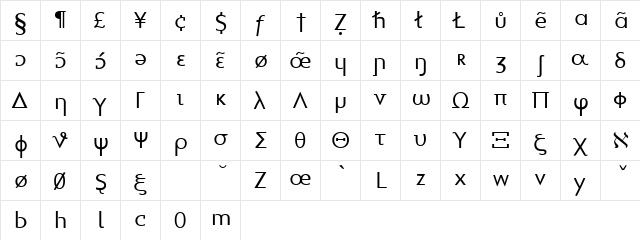
HEYTTA Regular
Design Context for HEYTTA Typeface
HEYTTA takes a measured approach to typography — its balanced proportions and neutral character make it a reliable workhorse for both digital and print work.
Pro Tip: Pair HEYTTA with a font of contrasting weight or personality to build a more expressive typographic hierarchy.